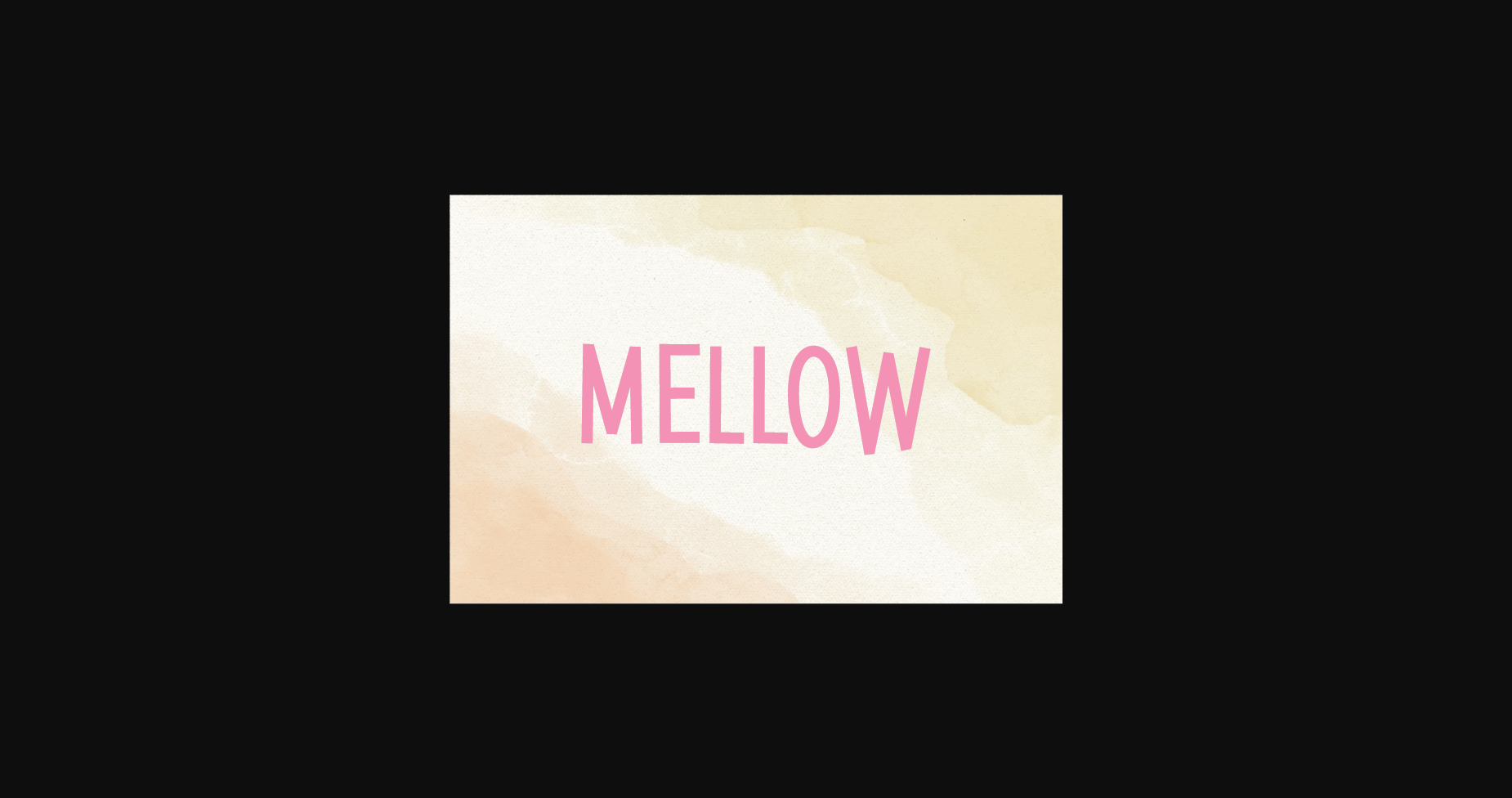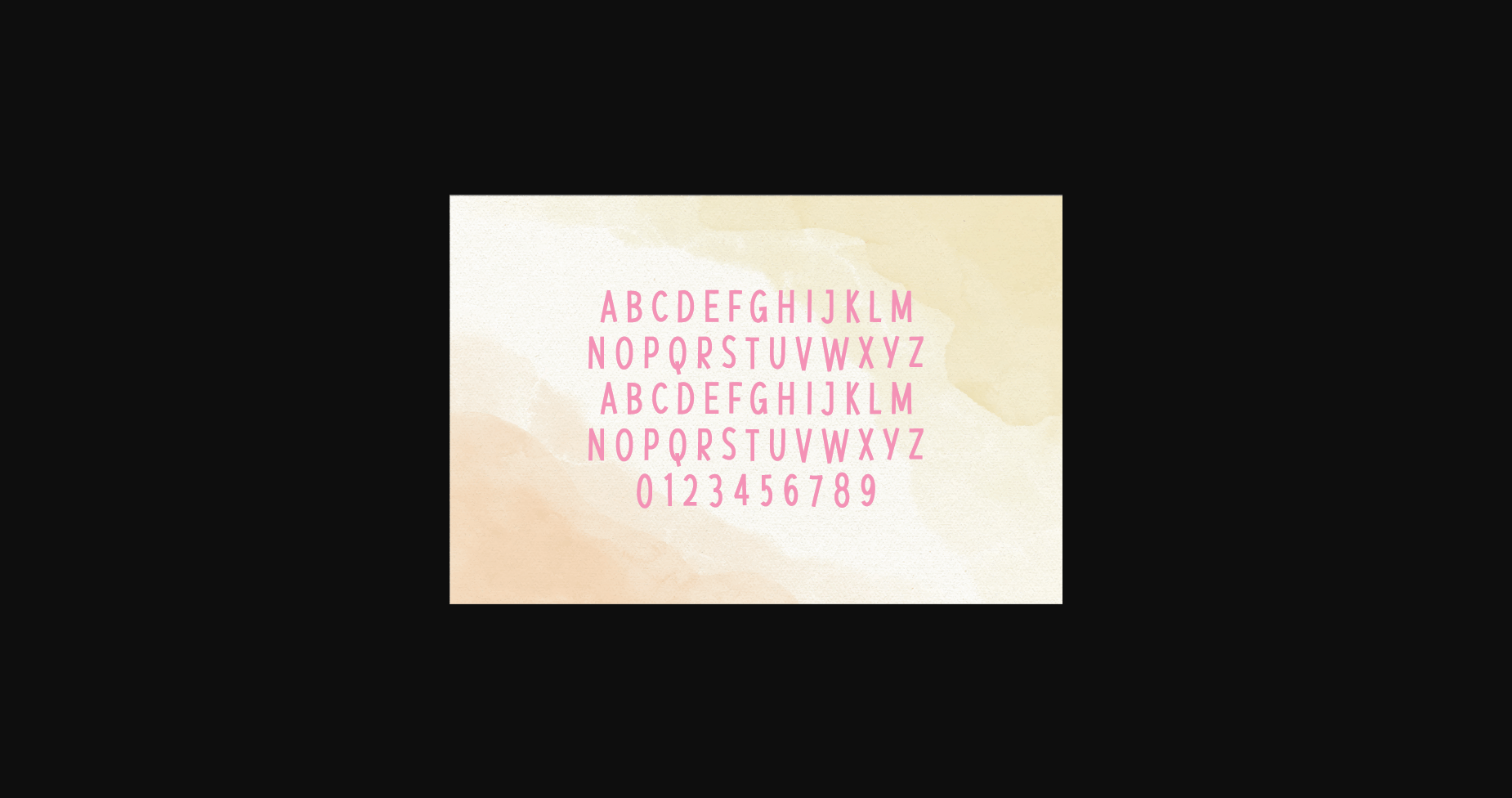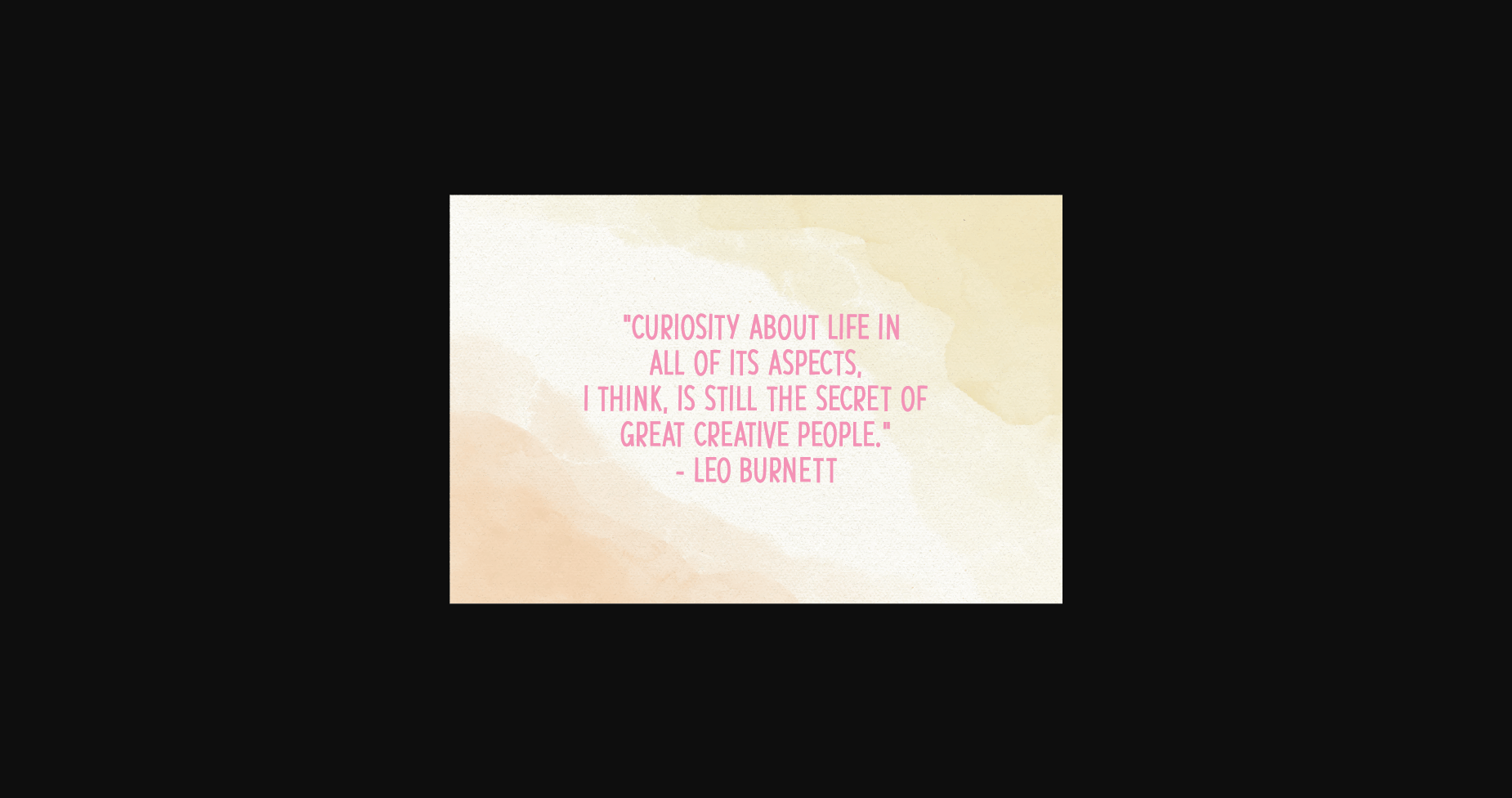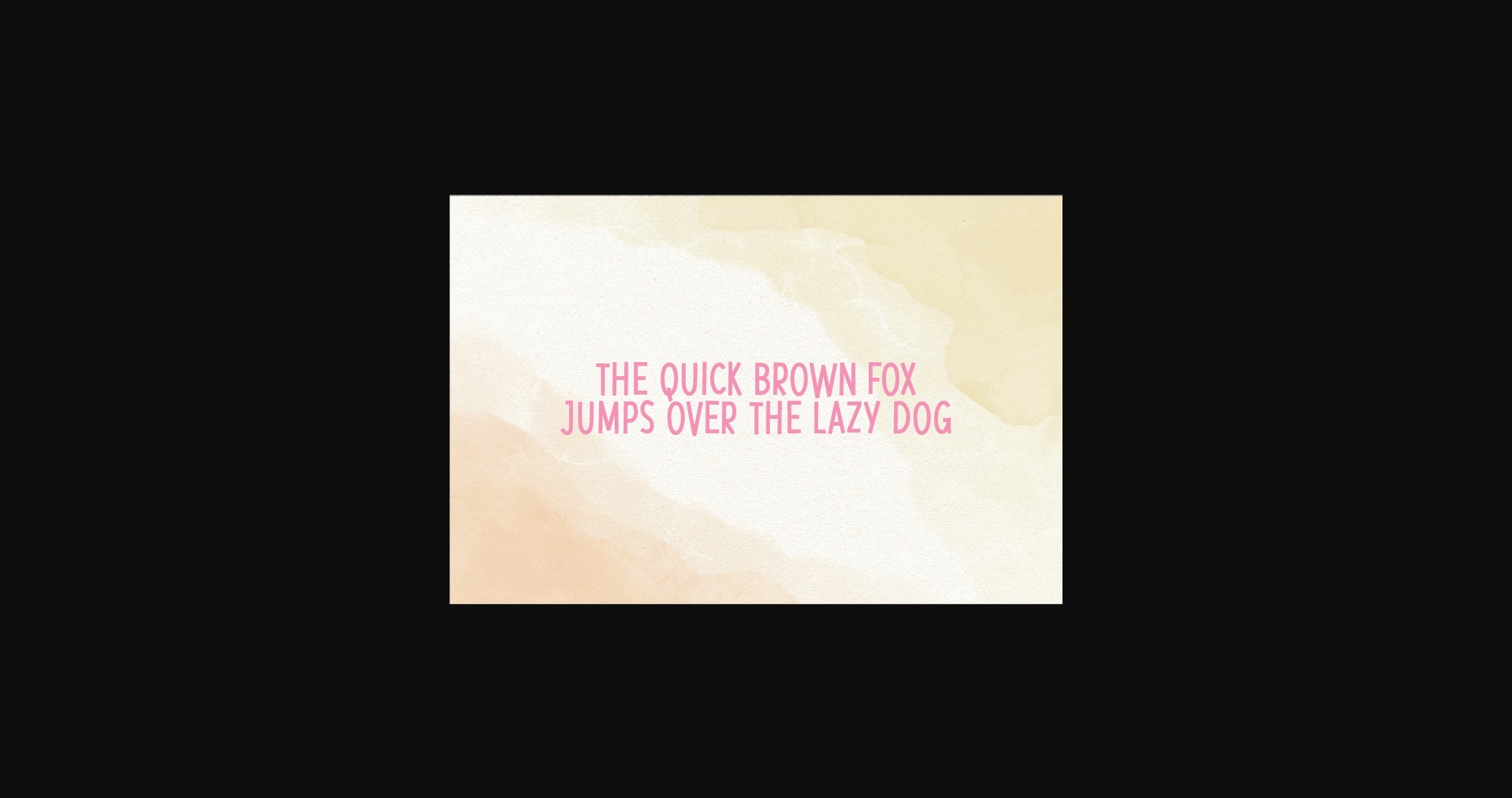
HomeSans Serif FontsMellow Font Sans Serif Fonts Mellow Font FacebookXPinterestWhatsApp 1 of 6 ... Mellow Font Poster 2... Mellow Font Poster 3... Mellow Font Poster 4... Mellow Font Poster 5... Mellow Font Poster 6... About Mellow Font Mellow is a beautiful sans serif font that will make a wonderful asset to your collection. Add it to your logos, quotes, T-shirts, greeting cards, business cards, and many more, and make them outstanding! DOWNLOAD NOW People also explored Verdure Font Abiding Love Font Humerus Odelina Font Bounty Font Briston Font Snooker Honey Valentine Manson Monogram Font 273 0 TagsMellowMellow Font Previous articleNatured FontNext articleBeautiful Font LEAVE A REPLY Cancel reply Comment: Please enter your comment! Name:* Please enter your name here Email:* You have entered an incorrect email address! Please enter your email address here Website: Save my name, email, and website in this browser for the next time I comment. Personal Use Free Quickline Personal Use Free Read more about this font Sellena Brush Font Personal Use Free Read more about this font Romantic February Personal Use Free Read more about this font Gunplay Personal Use Free Read more about this font BLOG Fonts That Capture the Spirit of New York City New York City is more than just a place—it’s an experience, a rhythm, a visual language... Free vs Paid Fonts: Why Investing in Premium Fonts Is Worth It 5 Fonts That Will Dominate Design Trends in 2026 Modern Sans-Serif Fonts That Brands Love in 2025